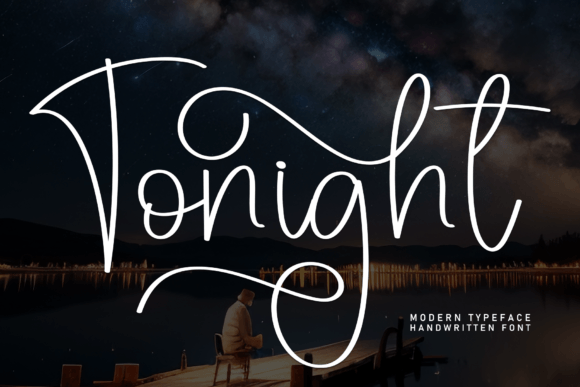
Behold, Tonight Font: The Ultimate Expression of Refined Elegance and Modern Appeal
Are you yearning to elevate your creative projects with a touch of sophistication, a dash of charm, and an undeniable allure? Look no further than Tonight Font, the exquisite handwritten font meticulously crafted to captivate hearts and ignite imaginations. As an outstanding member of the script font family, Tonight Font possesses an aura of understated elegance, effortlessly blending the timeless beauty of calligraphy with a refreshingly contemporary flair. Immerse yourself in the world of Tonight Font and unveil a treasure trove of possibilities.
Tonight Font: Unveiling a Symphony of Creative Potential
Tonight Font is more than just a font; it's a versatile artistic tool that unlocks the door to a world of boundless creativity. Whether you're a seasoned designer seeking to elevate your projects or an aspiring artist eager to leave an indelible mark, Tonight Font will be your faithful companion, guiding you effortlessly through your creative journey. Its meticulously designed characters exude a natural flow and graceful movement, adding an organic touch to your designs that will leave your audience spellbound.
Experience the Unrivaled Allure of Tonight Font
Tonight Font possesses an undeniable magnetism that draws the eye and captivates the soul. Its carefully crafted curves and delicate flourishes create a visual symphony that dances across your designs, evoking emotions and leaving a lasting impression. Unleash the power of Tonight Font to transform ordinary text into captivating headlines, alluring logos, enchanting invitations, and heartfelt greeting cards. With Tonight Font at your fingertips, the possibilities are limitless.
Tonight Font: Your Gateway to Creative Fulfillment
Embark on a creative odyssey with Tonight Font, your trusted ally in expressing your individuality and bringing your artistic visions to life. Its exceptional versatility makes it the perfect choice for an array of projects, from branding and marketing materials to personal stationery and heartfelt messages. Imagine the impact of your business cards adorned with Tonight Font, leaving a lasting impression on potential clients. Picture your wedding invitations radiating elegance and charm, captivating your guests from the very first glance. Tonight Font is your passport to a world of creative fulfillment, where your imagination knows no bounds.
Tonight Font: A Legacy of Excellence, Crafted with Passion
Tonight Font is the brainchild of andikastudio, a renowned font foundry dedicated to creating typographic masterpieces that inspire and empower creatives worldwide. With a passion for excellence and a keen eye for detail, the artisans at andikastudio have poured their hearts and souls into crafting Tonight Font, ensuring that every curve, every flourish, and every stroke is a testament to their unwavering commitment to quality. As a result, Tonight Font has emerged as a true masterpiece, a testament to the transformative power of typography.